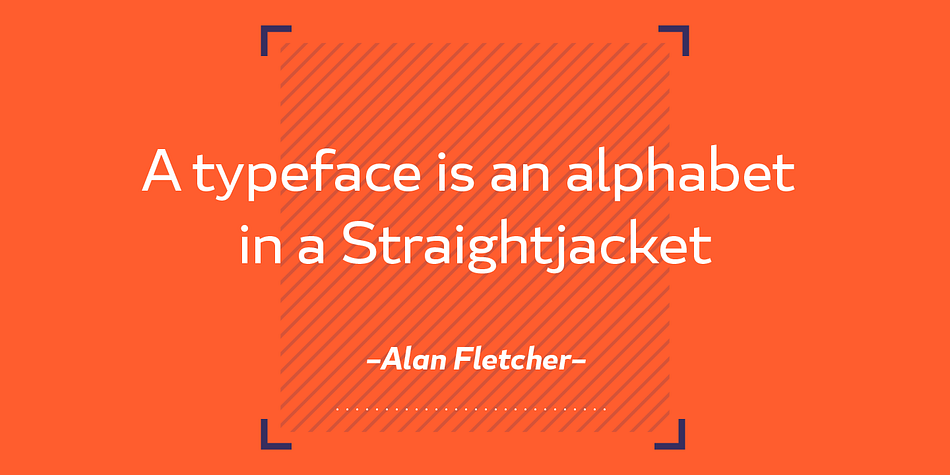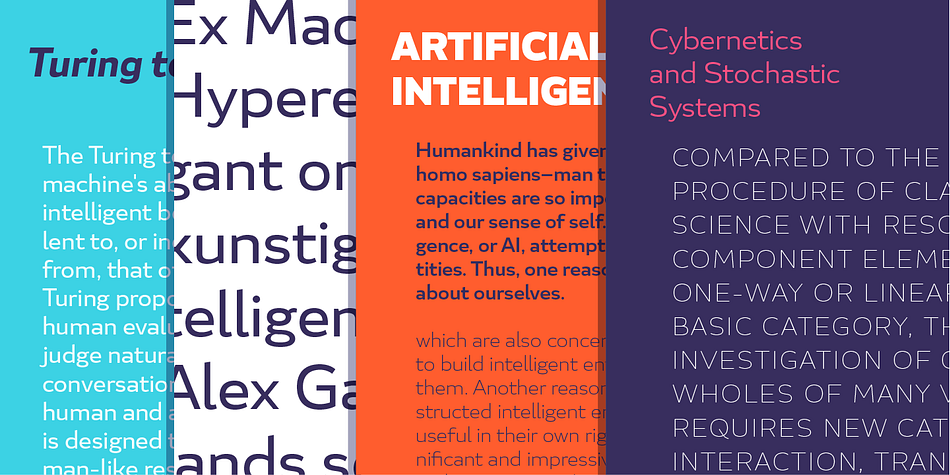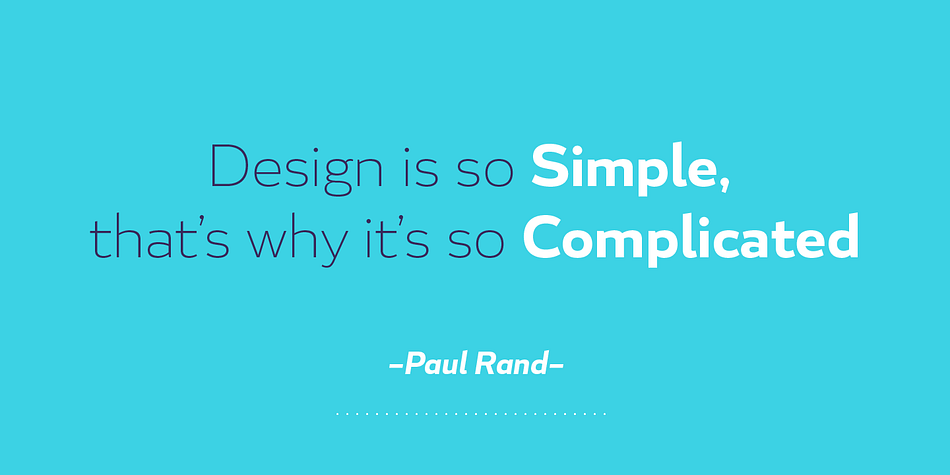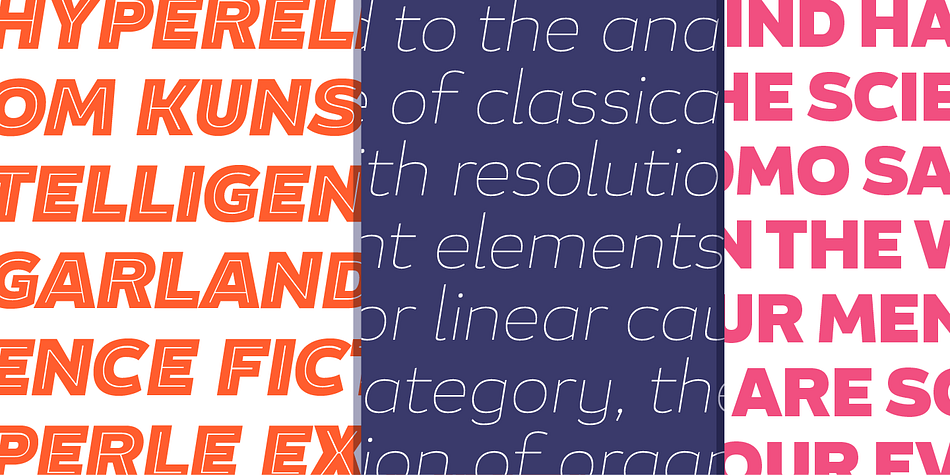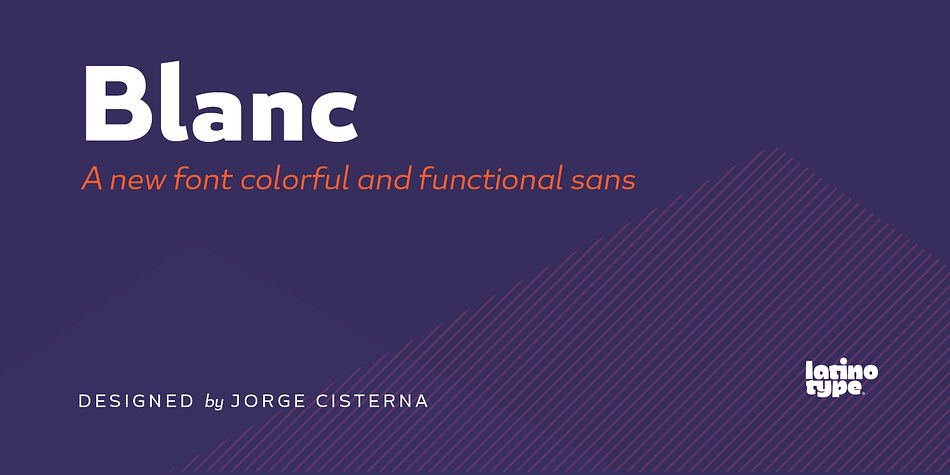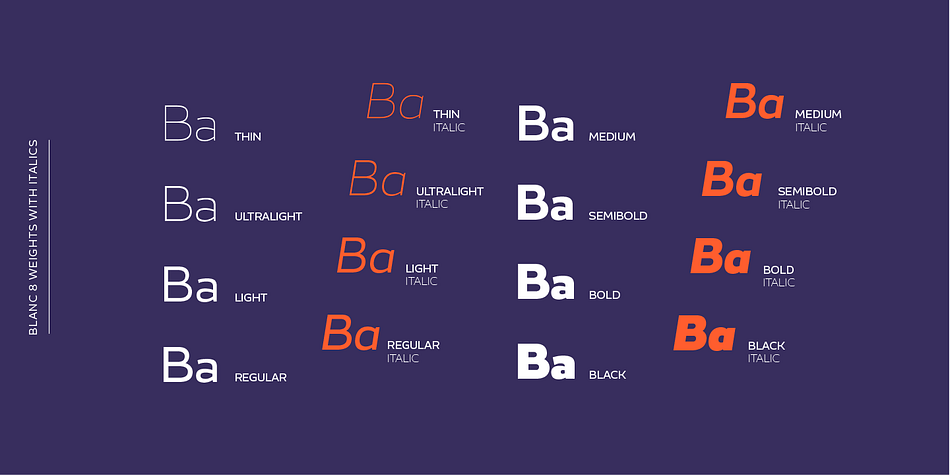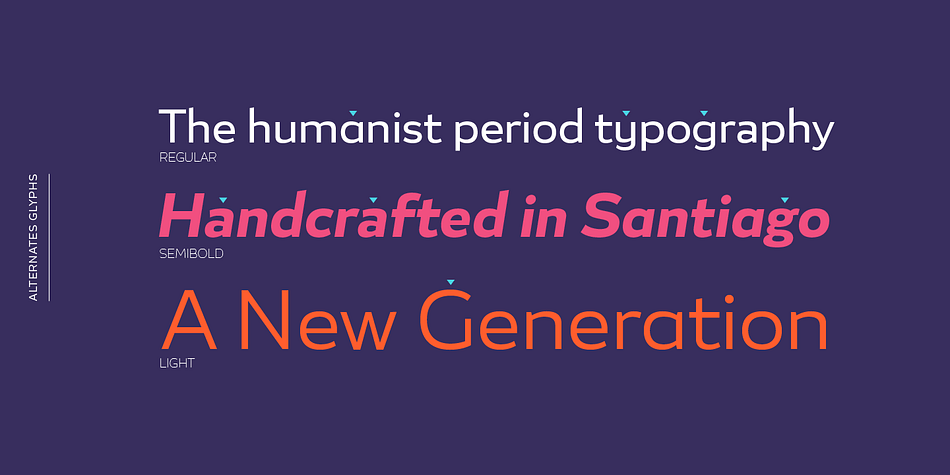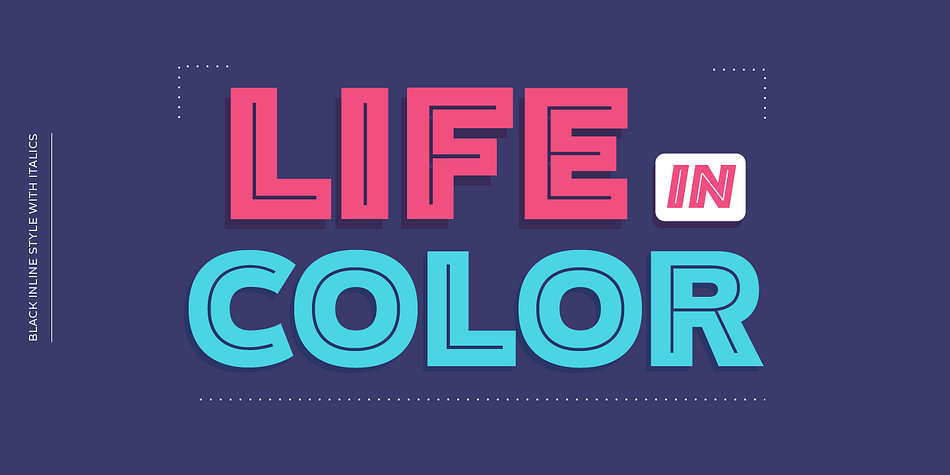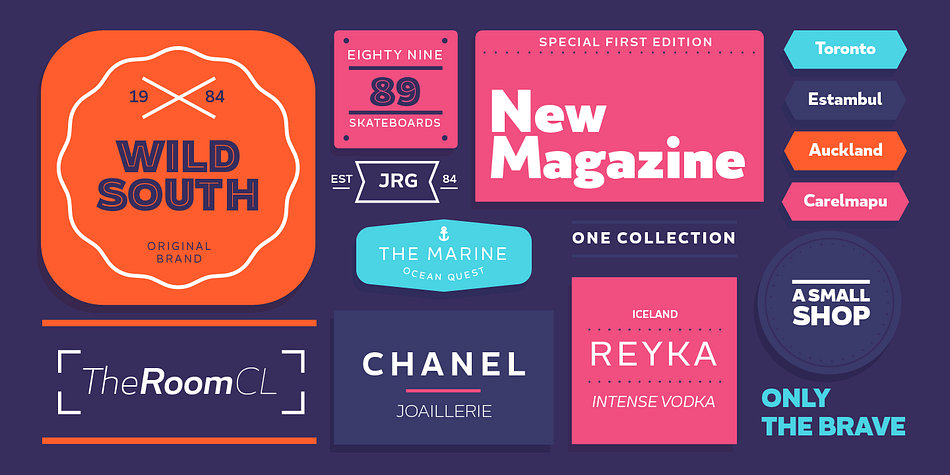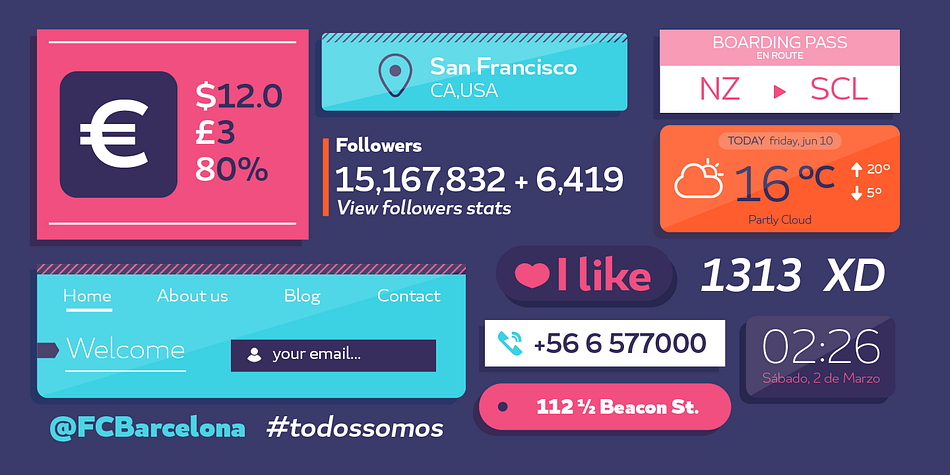
Designed by Jorge Cisterna, Blanc is a sans serif and display sans font family. This typeface has eighteen styles and was published by Latinotype.
Blanc is a functional humanist sans typeface with a marked personality and great style that make it ideal for use in headlines. Blanc is an ode to neutrality: a geometric face characterised by low contrast between thick and thin strokes with calligraphic features that emphasise specific glyphs.
Blanc comes with 8 weights and an inline version that make it well-suited for headings and subheadings, corporate designs, advertising, publishing, etc.
Designer | Jorge Cisterna |